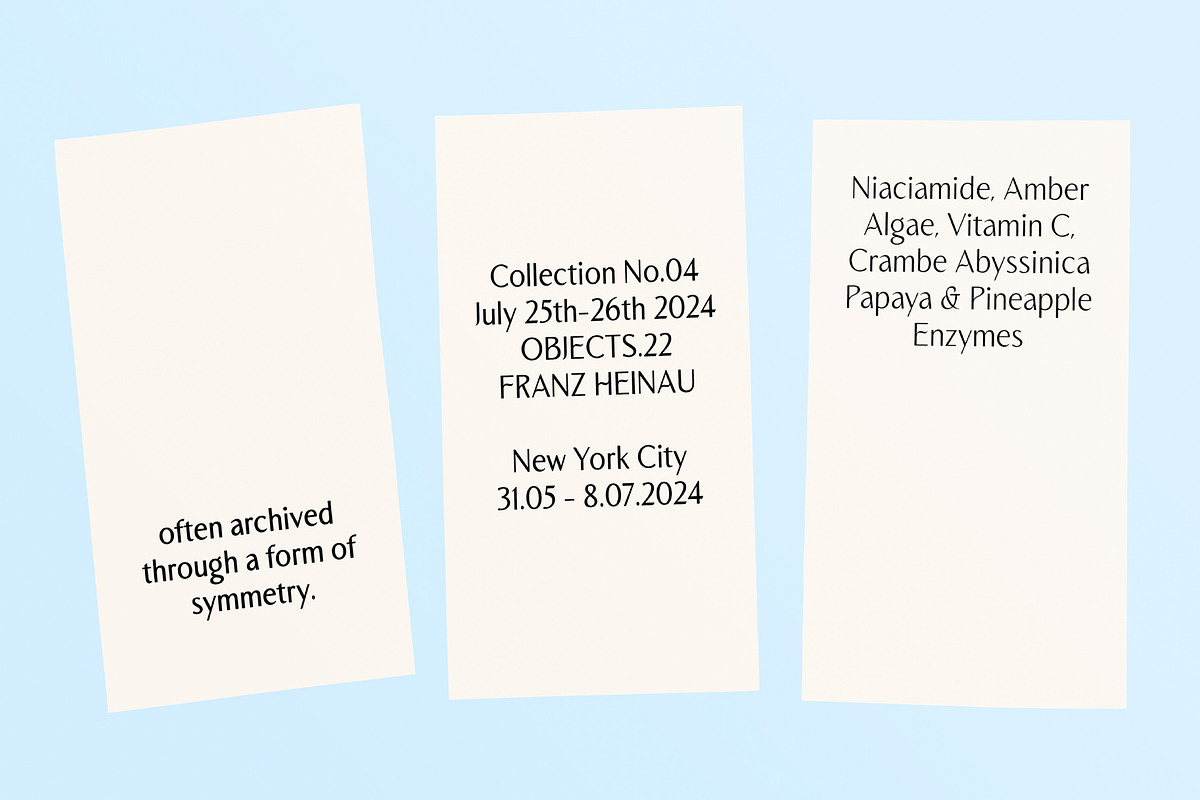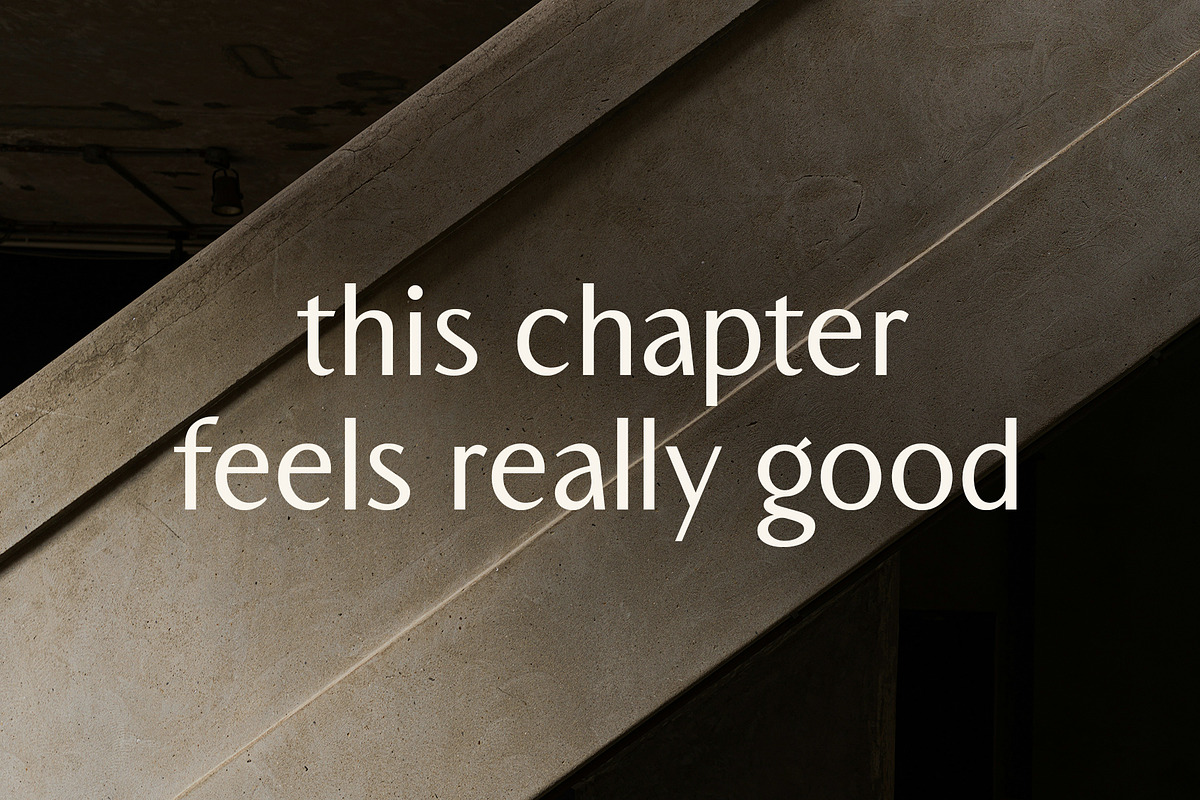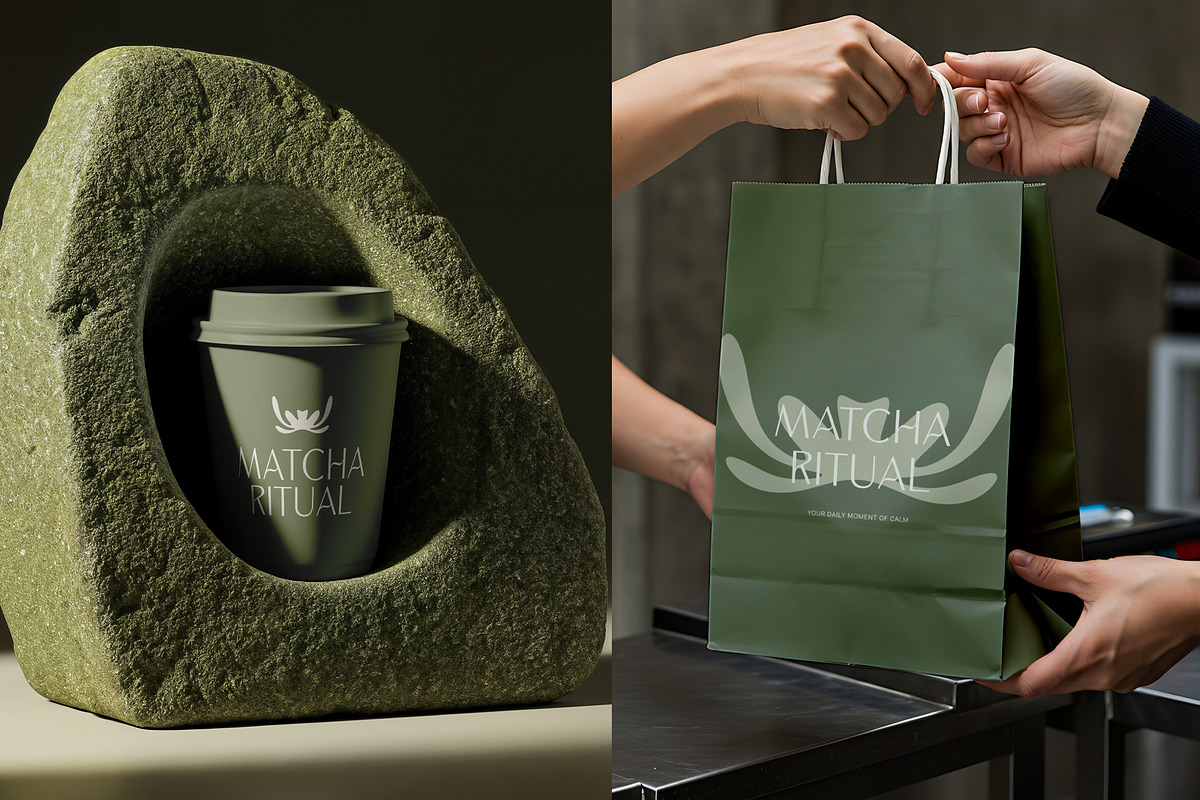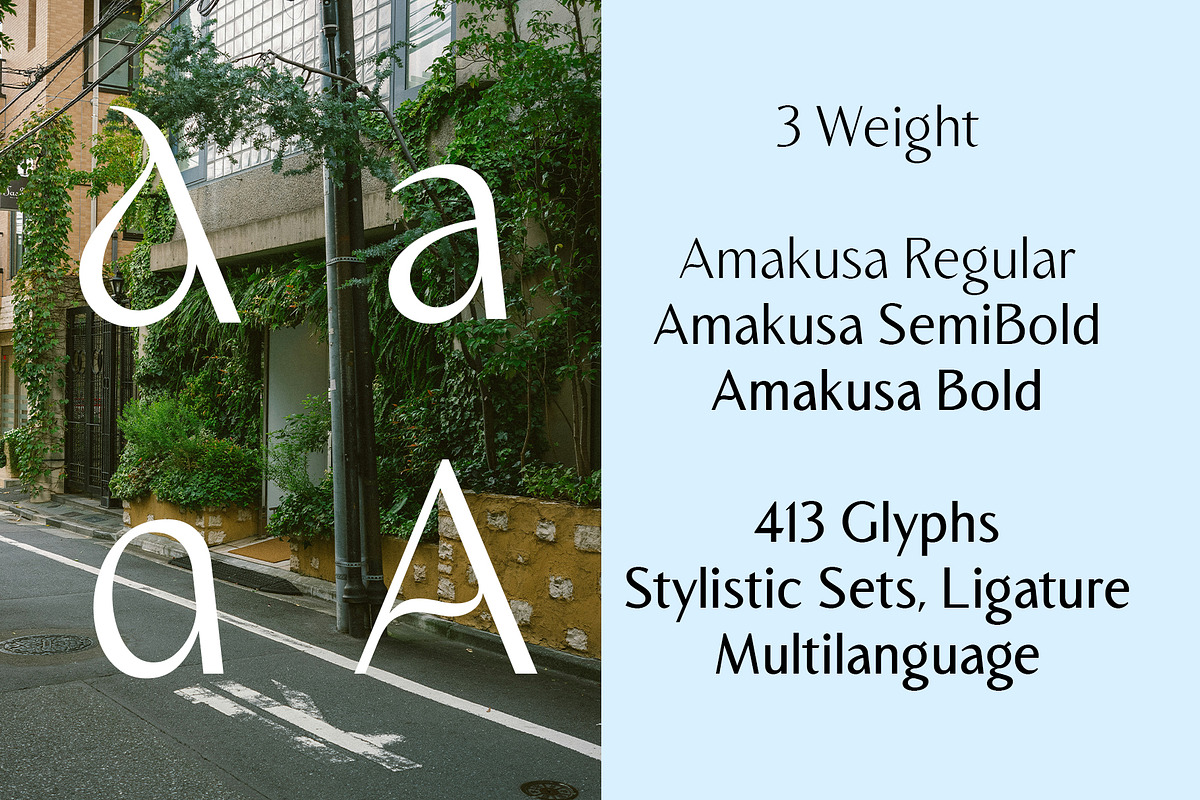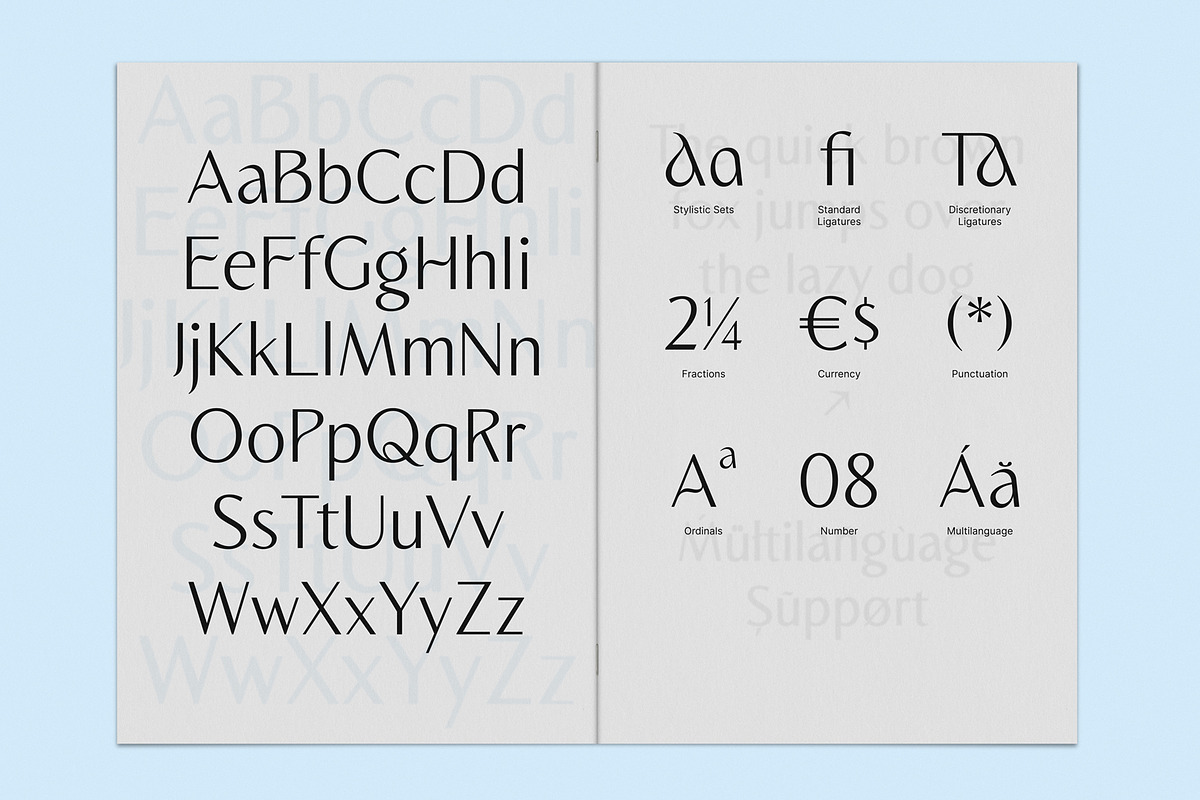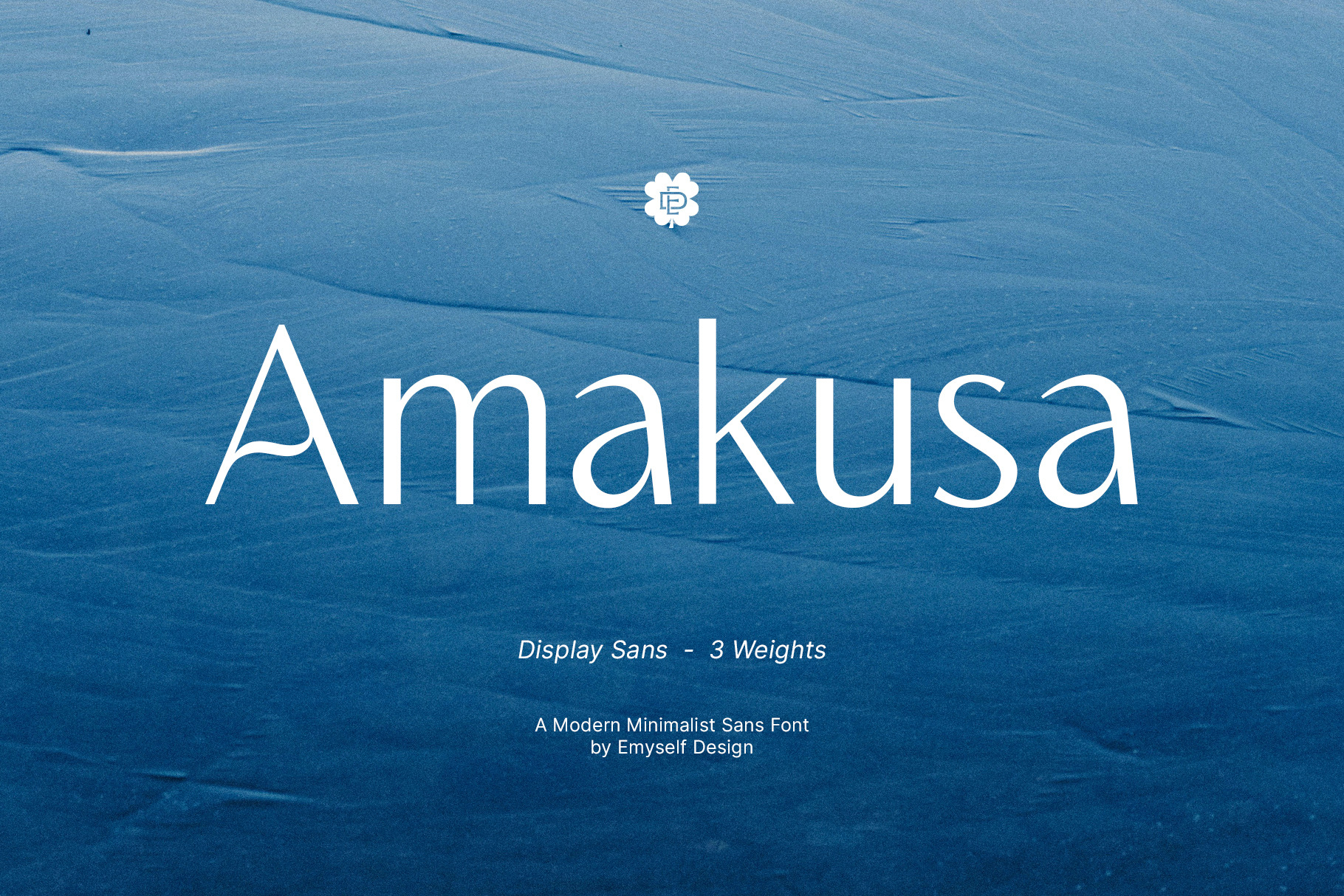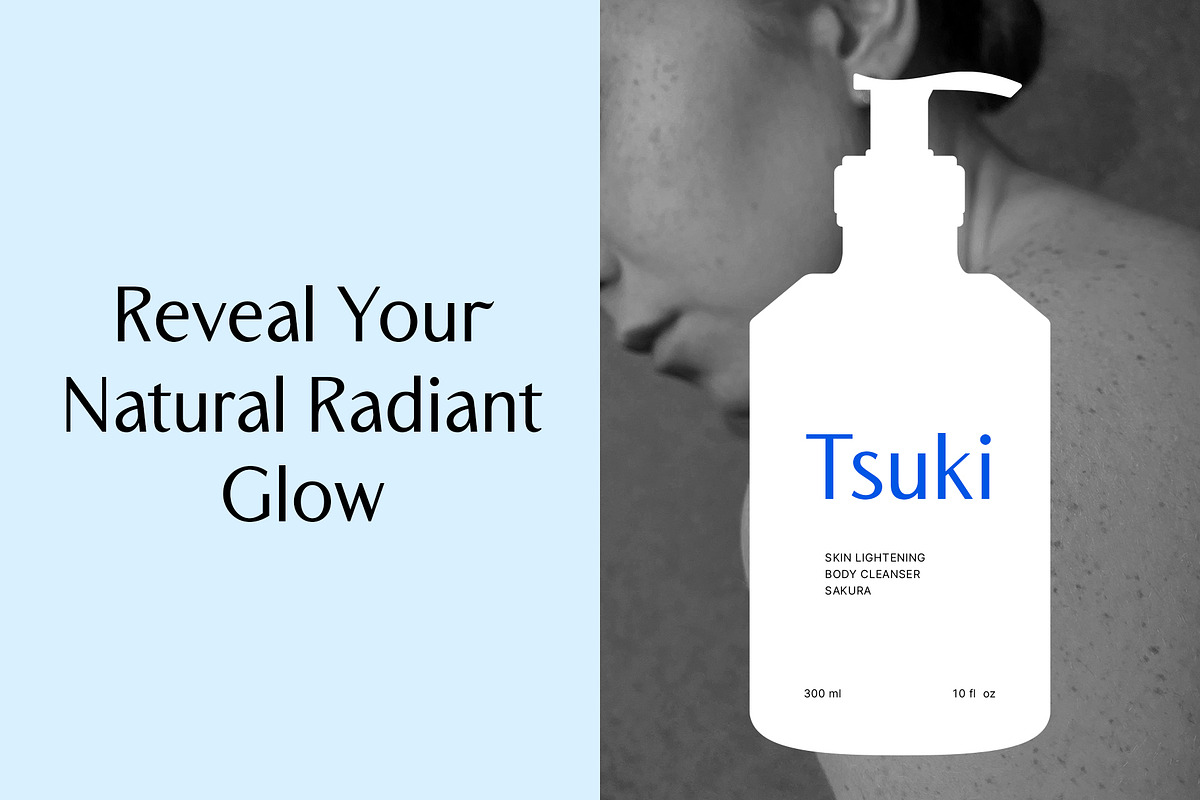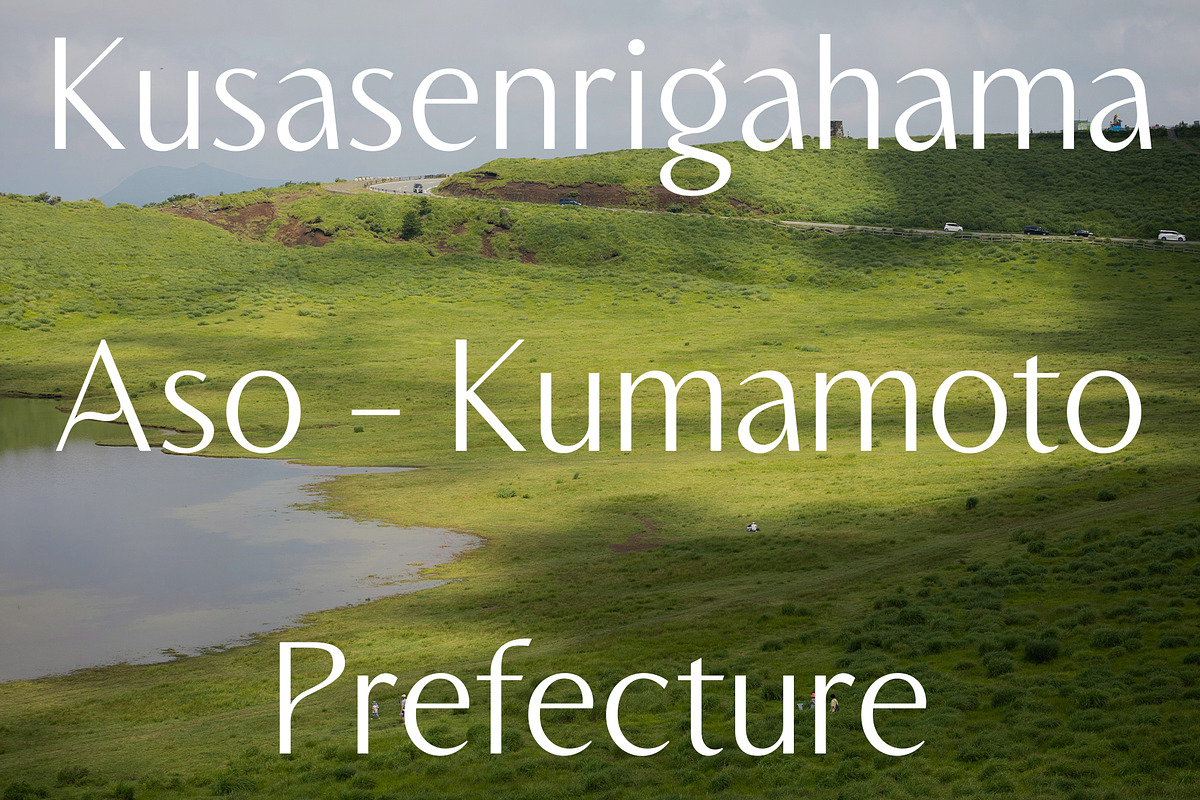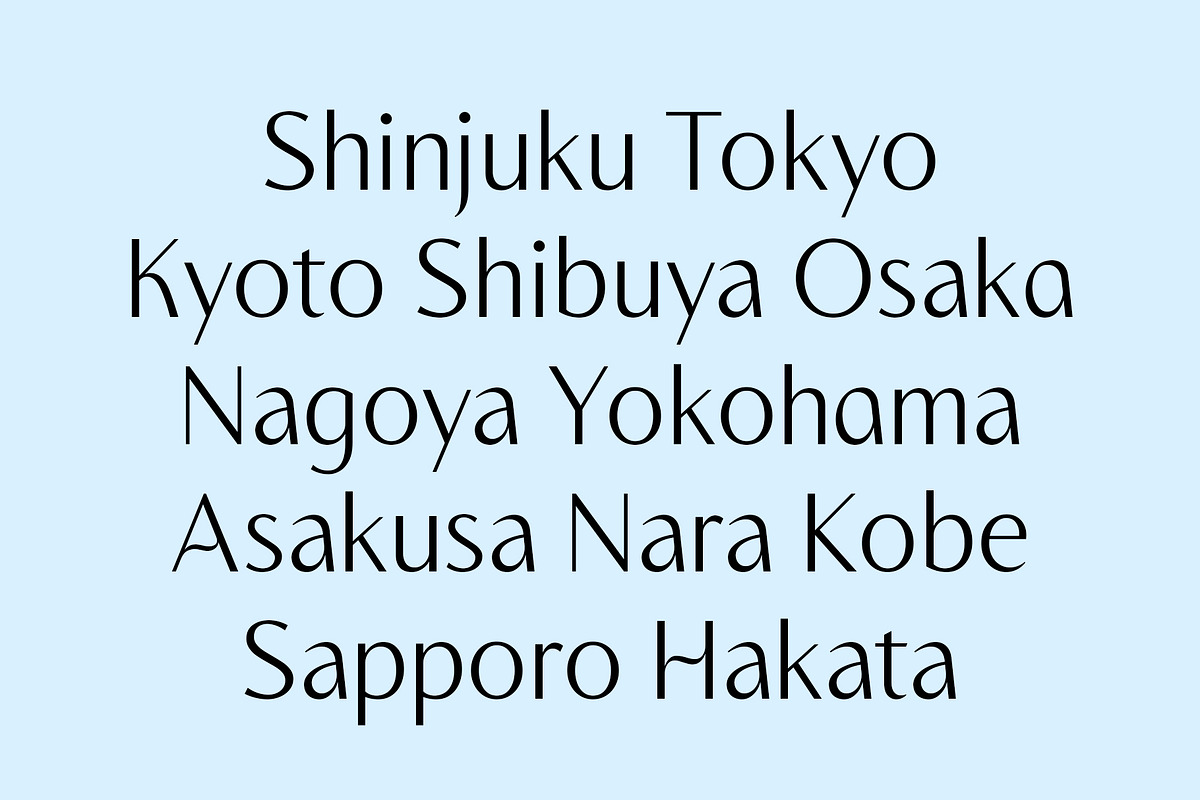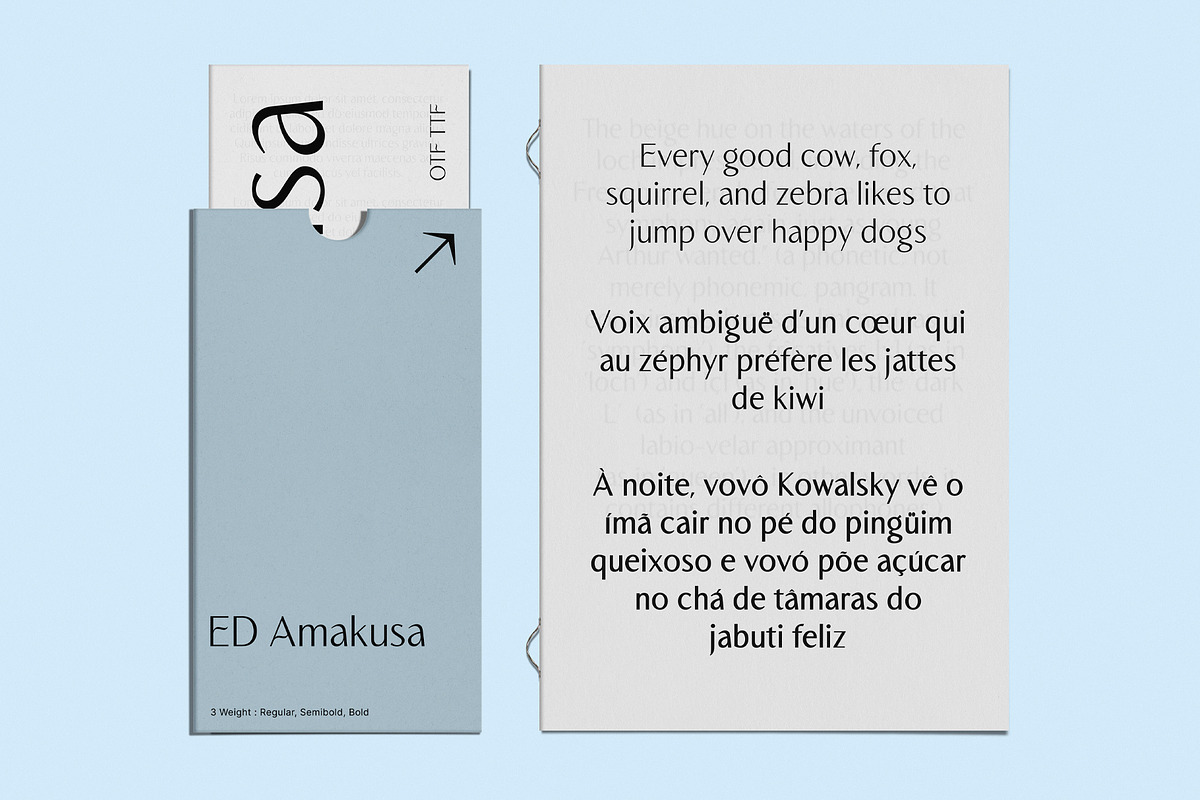
ED Amakusa - Modern Display Font
ED Amakusa is a modern display sans serif designed with clean lines, elegant curves, and balanced proportions. Its contemporary and distinctive character makes it perfect for creating eye-catching typography with a refined and professional look. Available in three weights — Regular, Semibold, and Bold — ED Amakusa helps you build a clear visual hierarchy while maintaining a consistent style.
With its distinctive display character and versatile weight range, ED Amakusa is perfect for: branding, logos, headlines, posters, packaging, editorial layouts, social media, and modern web design.
- 3 Weights: Regular, Semibold, Bold
- Stylistic Sets
- Standard & Discretionary Ligatures
- Fractions, Ordinals, Currency & Punctuation